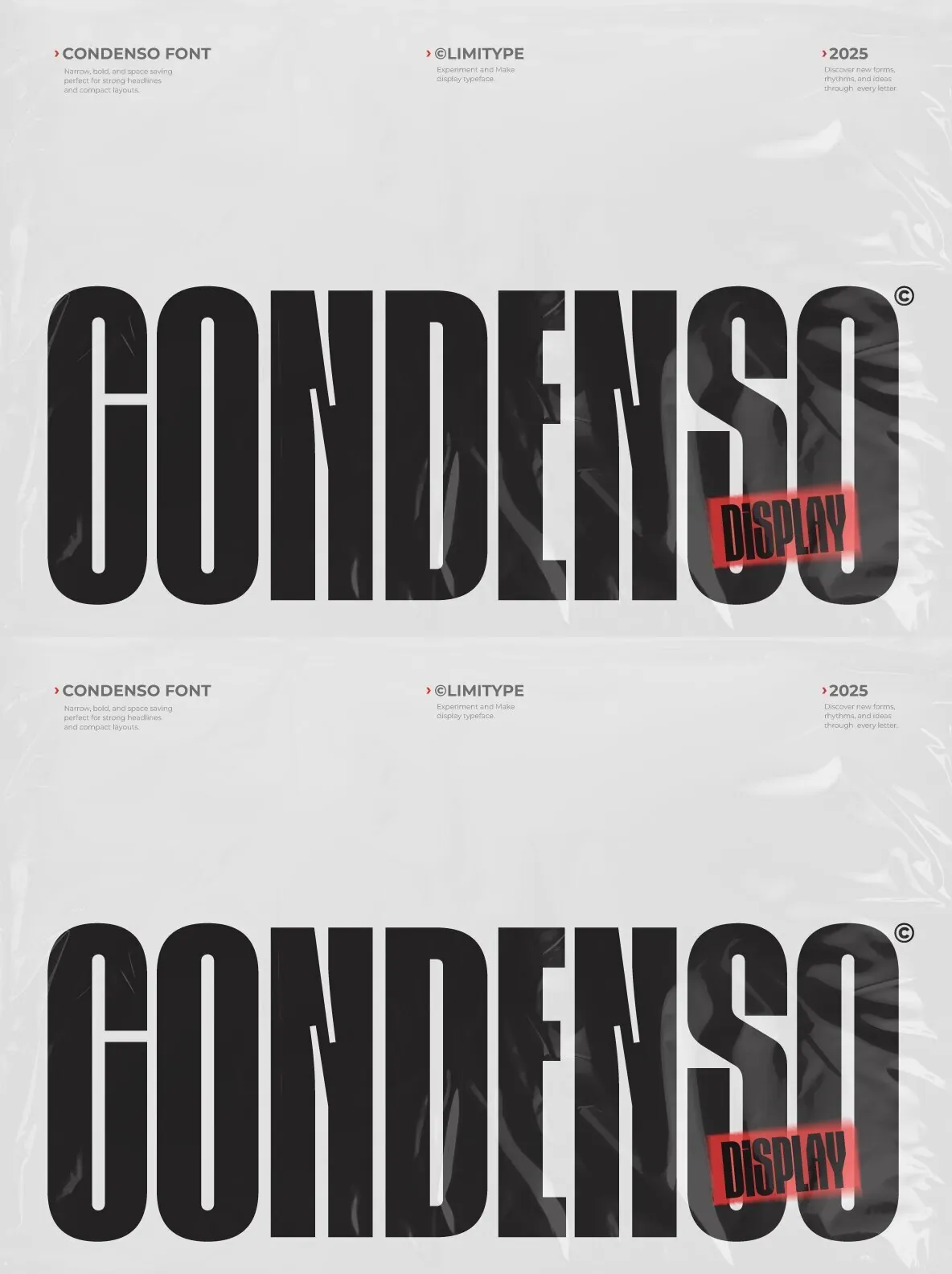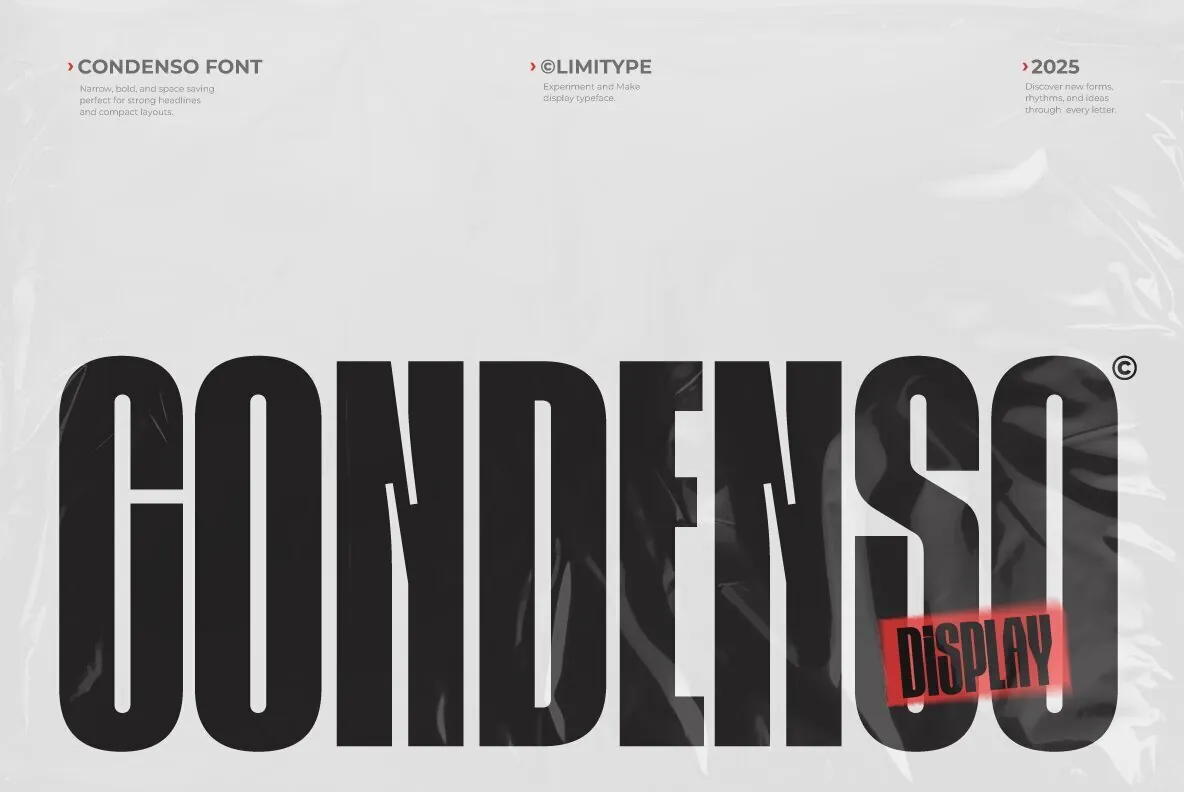
Condenso: Modern Condensed Display With Distinctive Inktraps
Condenso offers a striking presence for visual communication that demands focus. Its condensed structure and signature inktraps supply a contemporary edge, creating sharp and impactful letterforms well-suited to headline treatments, urban aesthetics, and bold branding projects. The narrow proportions allow for efficient use of space without sacrificing legibility, making it a valuable choice for projects where words need to command attention in limited space.
Consistent spacing and a purposeful rhythm set Condenso apart in editorial layouts and merchandise design. Its clarity at large sizes makes it ideal for sophisticated posters or event graphics where a confident typographic statement is required.
Features:
Narrow, condensed letterforms for maximum impact
Distinctive inktraps that add character and enhance readability
Optimized for headlines, posters, branding, and urban-inspired design
Balances space-saving utility with clear, modern style